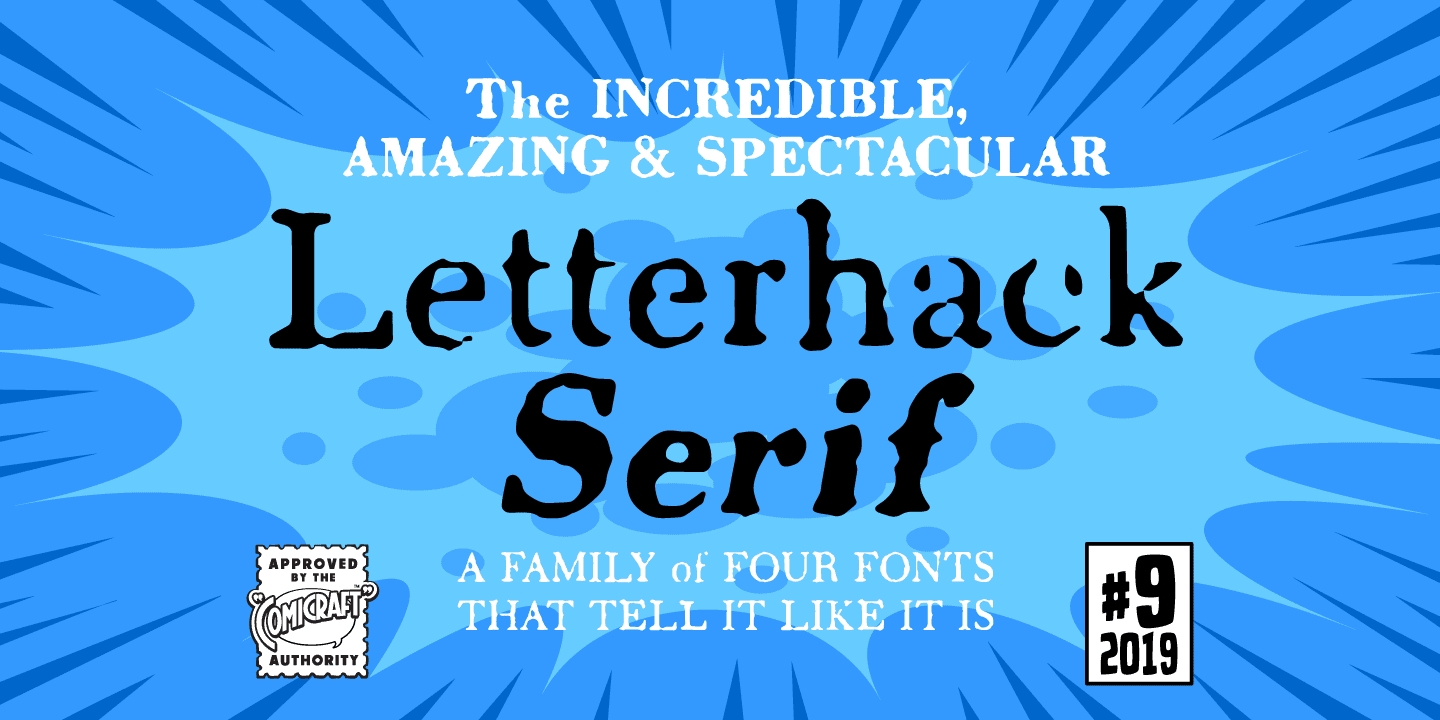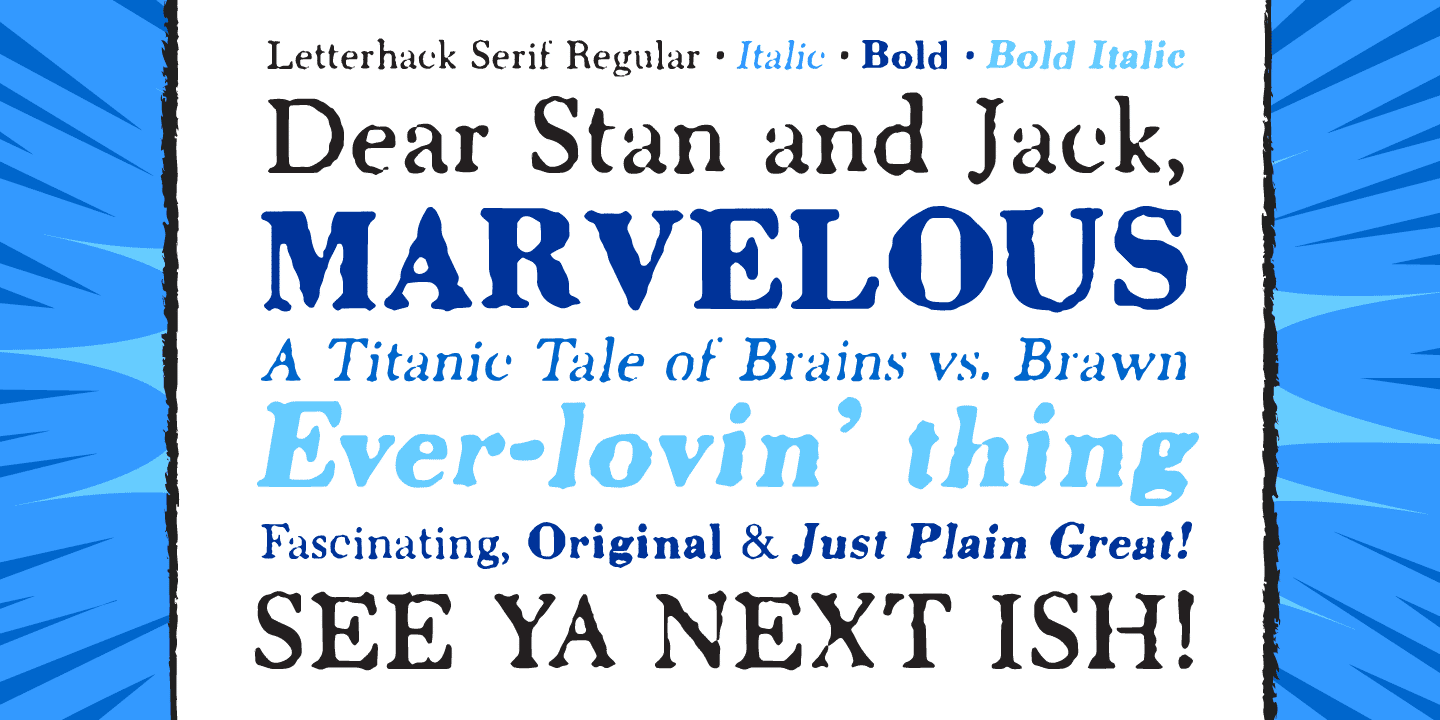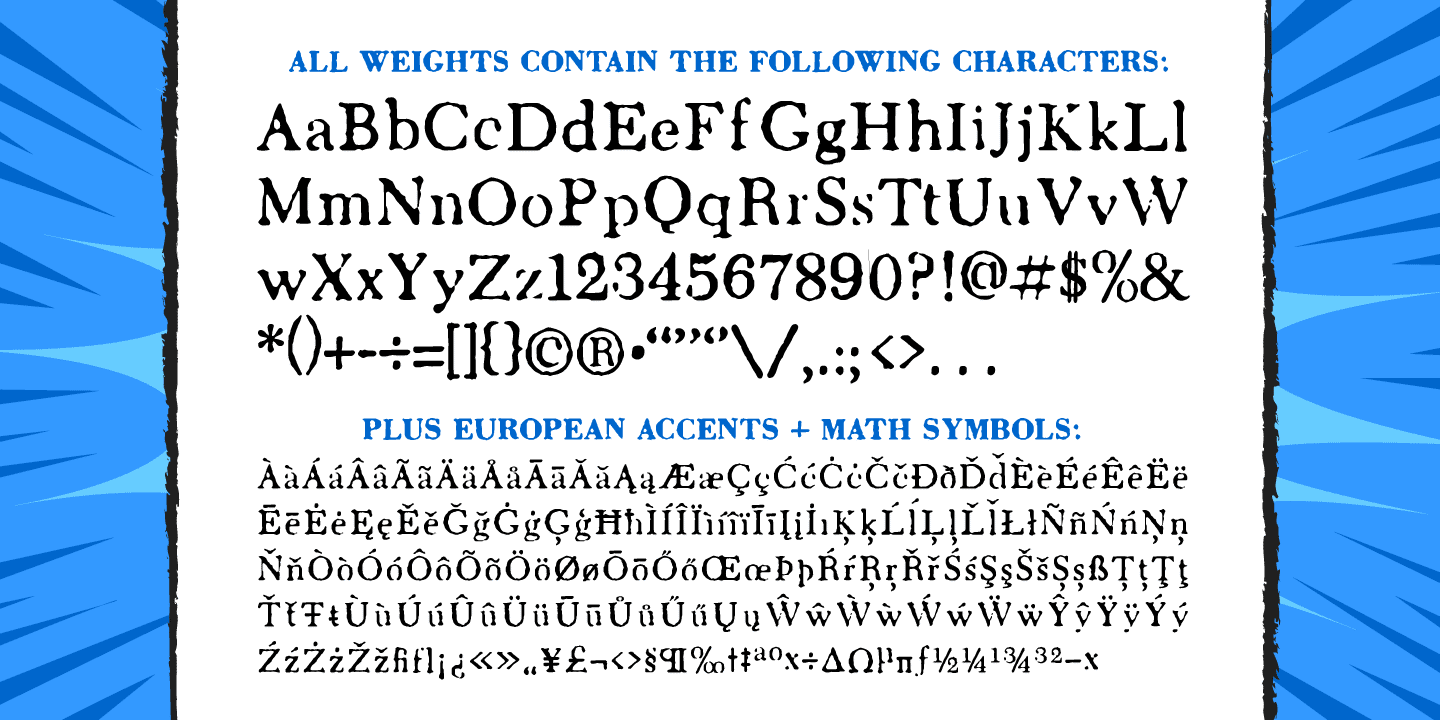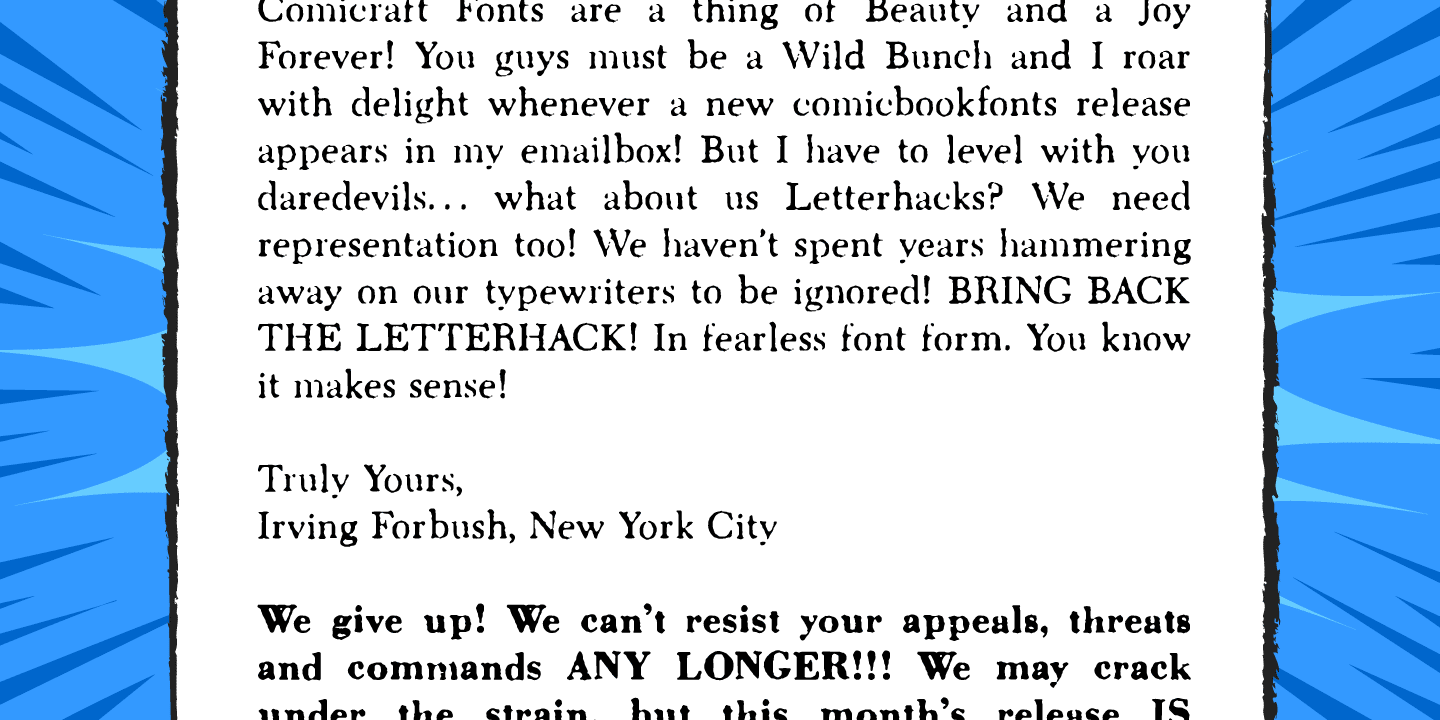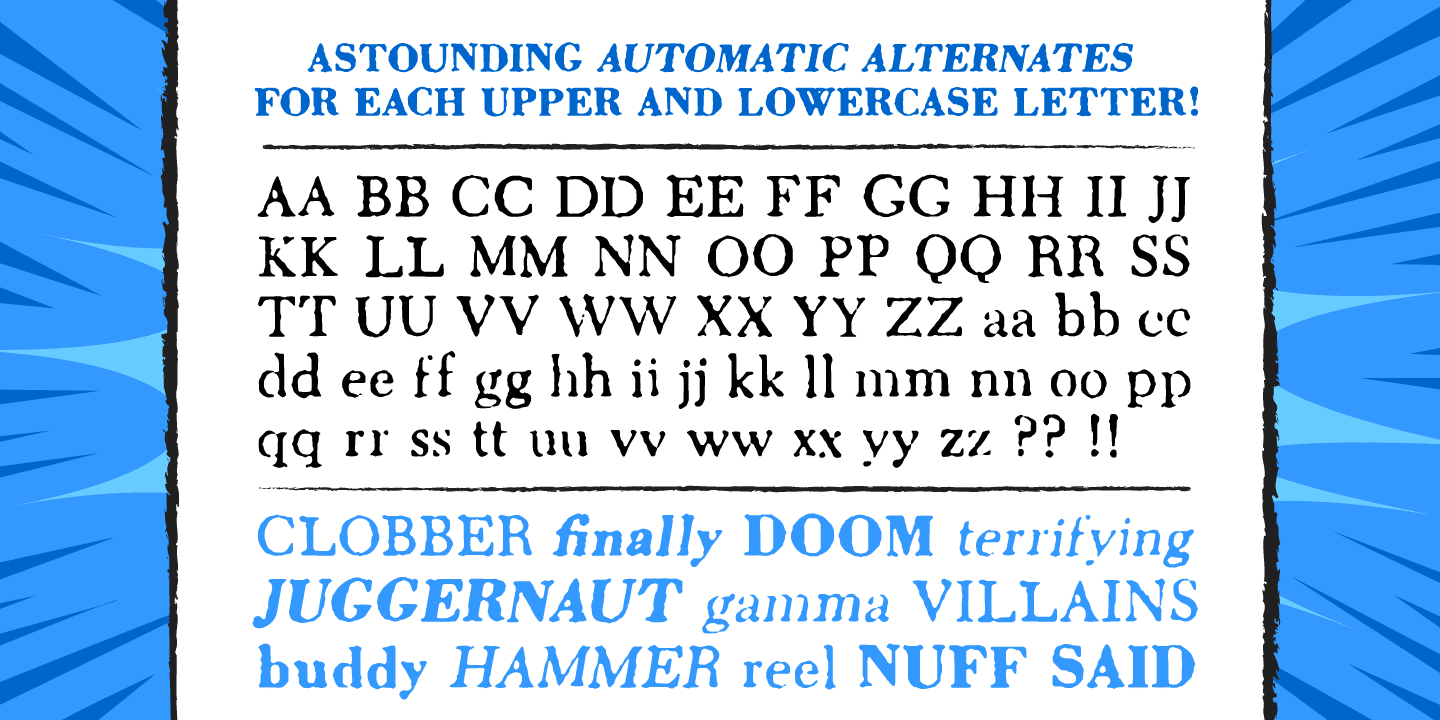
Letterhack Serif
Font Family by Comicraft Fonts
IT'S MAILBAG TIME!
Dear Jolly JG Roshell and Rascally Richard Starkings,
Comicraft Fonts are a thing of Beauty and a Joy Forever! You guys must be a Wild Bunch, and I roar with delight whenever a new comicbookfonts release appears in my emailbox. But I have to level with you daredevils...what about us Letterhacks? We need representation too! We haven't spent years hammering away on our typewriters to be ignored! BRING BACK THE LETTER HACK! In fearless font form. You know it makes sense!
Truly Yours,
Forbush, Irving, senior.
We give up! We can't resist your appeals, threats and commands ANY LONGER!!! We may crack under the strain, but this month's release IS two (count 'em) Letterhacks!
That's right, a pair of fantastic fonts that recreate the look and feel of your Marvelous Letters of the Sixties! It's a Bullpen Bulletin! It's an Iconoclastic Item!